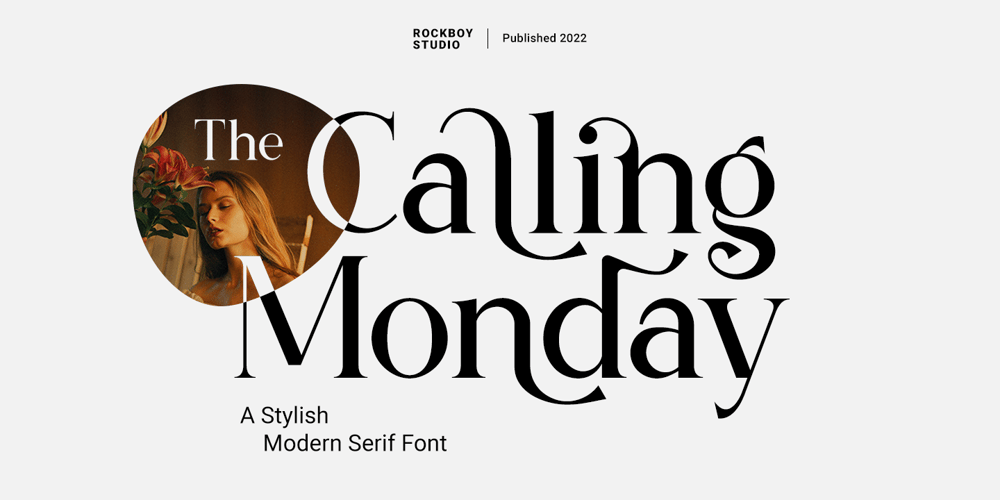
The Calling Monday
The Calling Monday font
The Calling Monday Font Family was designed by Hayinah and published by Rockboys Studio. The Calling Monday contains 1 styles and family package options. The Calling Monday is an elegant, thin lettered and distinct serif font. Suitable to a wide variety of designs due to its neat and clean style, this font has the potential to become your favorite go-to font, no matter the occasion!